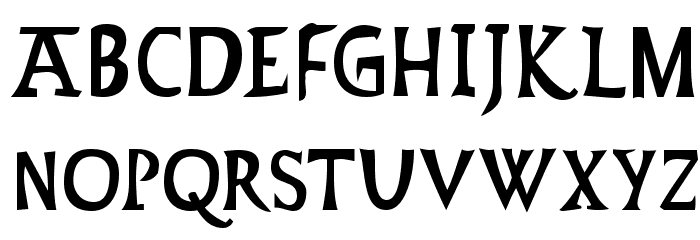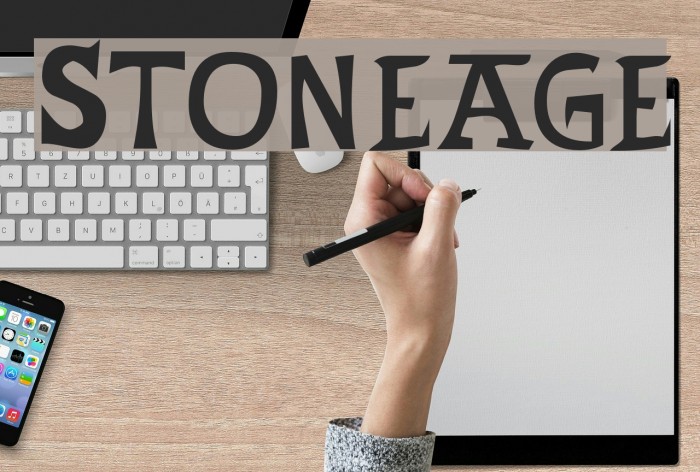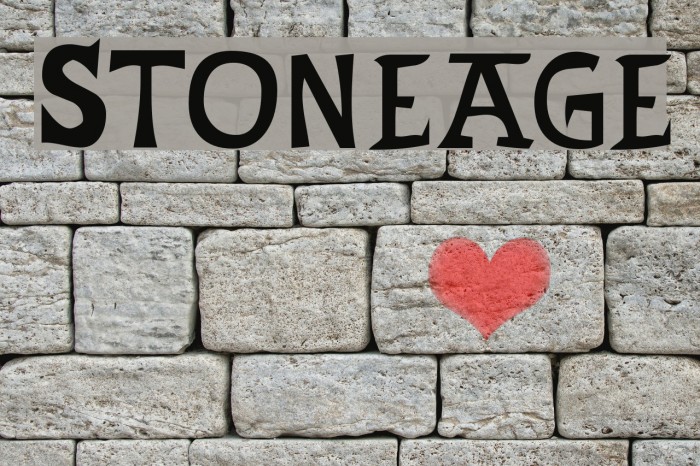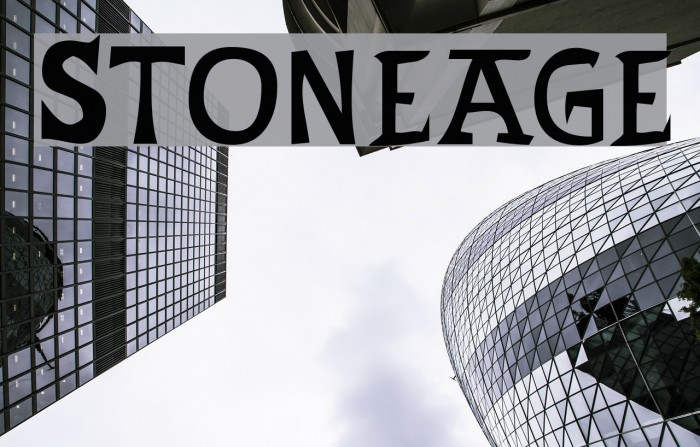
Stoneage Font
This font features a bold and rugged design, reminiscent of ancient inscriptions carved into stone. The characters have a distinct, chiseled appearance with sharp angles and uneven edges, giving it a primitive yet artistic feel. The uppercase letters are particularly striking, with a strong presence that commands attention. The lowercase letters maintain the same rugged style, ensuring consistency throughout the typeface. The numbers and special characters are designed to match the overall aesthetic, making it suitable for projects that require a touch of historical or adventurous flair.
A bold, rugged font with a chiseled, ancient inscription style.
- Proposed Projects: Ideal for use in themed event posters, adventure book covers, historical documentaries, or any project requiring a primitive, ancient aesthetic.
- Overall Style: Vintage